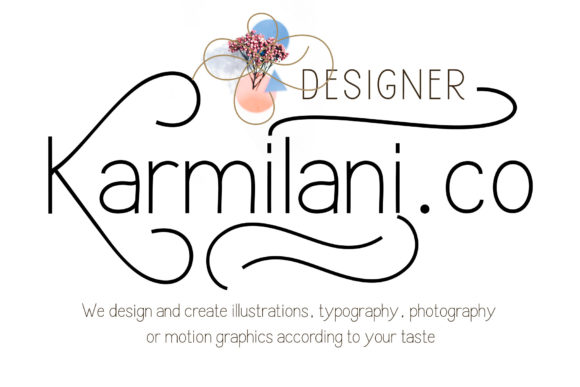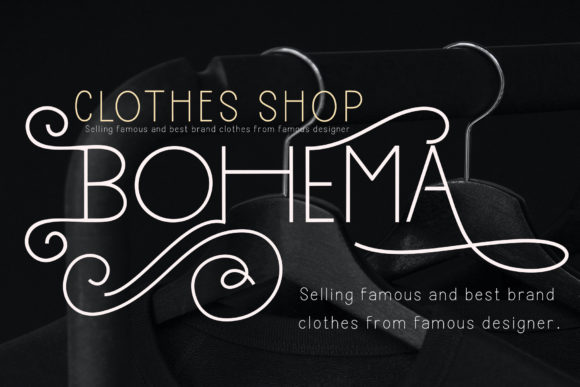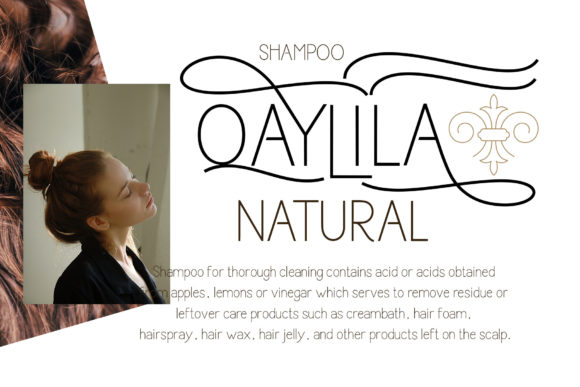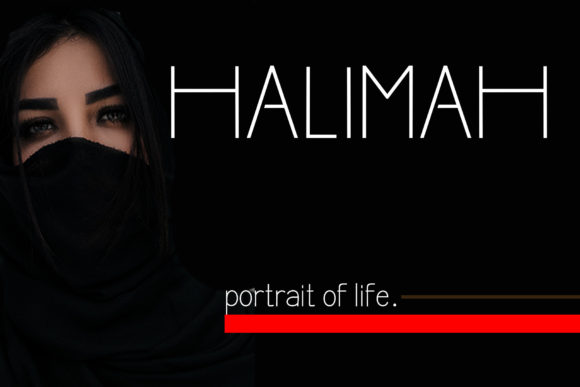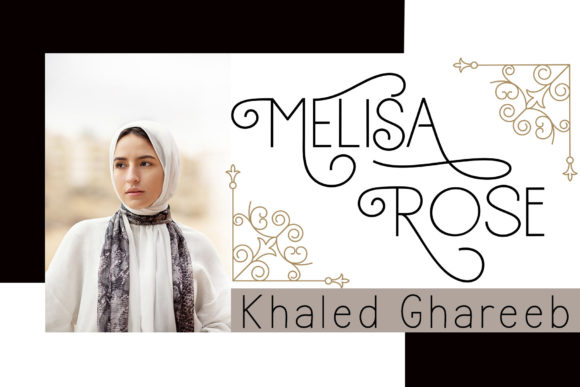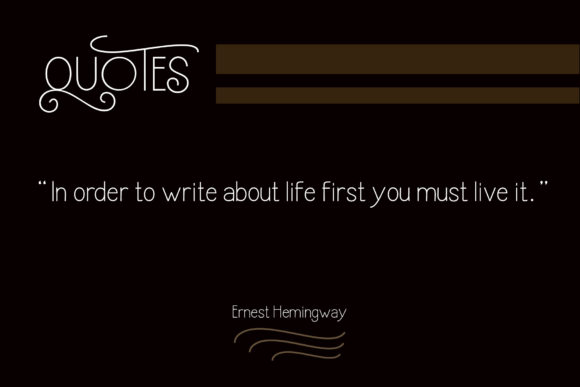
Discover the Elegance of Antona Font: A Versatile Sans Serif for Your Creative Projects
Are you on the hunt for a font that exudes elegance and sophistication? Look no further than Antona Font, a stunning sans serif typeface that is sure to elevate your designs to new heights. With its incredibly versatile style and PUA encoding, Antona Font is the perfect choice for designers and crafters looking to add a touch of refinement to their creative projects.
What Makes Antona Font So Special?
Antona Font is an elegant and thin lettered sans serif font that boasts a unique and captivating style. Its sleek lines and curves make it perfect for a wide range of applications, from luxury branding and advertising to packaging and digital media. But what really sets Antona Font apart is its PUA (Private Use Area) encoding, which allows you to access all of the glyphs and swashes with ease.
PUA encoding is a game-changer for designers, as it provides unparalleled flexibility and creative freedom. With Antona Font, you can effortlessly swap out letters and glyphs to create stunning, one-of-a-kind designs that showcase your unique style and vision.
The Benefits of Using Antona Font
So why choose Antona Font for your next design project? Here are just a few benefits of using this incredible typeface:
- Unparalleled versatility: Antona Font is incredibly versatile, making it perfect for a wide range of applications and design styles.
- Elegant and sophisticated: With its sleek lines and curves, Antona Font exudes elegance and sophistication, making it perfect for luxury branding and high-end designs.
- Easy to use: Thanks to PUA encoding, Antona Font is incredibly easy to use, even for designers who are new to working with glyphs and swashes.
- Highly customizable: With Antona Font, you can create truly unique designs by swapping out letters and glyphs to suit your style and vision.
How to Use Antona Font in Your Designs
Using Antona Font in your designs is incredibly easy, even if you’re new to working with fonts and glyphs. Here are a few tips to get you started:
- Access the glyphs and swashes: With PUA encoding, accessing the glyphs and swashes in Antona Font is easy. Simply use the font’s built-in character map or glyphs panel to browse and select the characters you need.
- Experiment with different combinations: Don’t be afraid to get creative and try out different combinations of letters and glyphs. Antona Font is highly customizable, so feel free to experiment and find the perfect look for your design.
Antona Font is a truly exceptional typeface that is sure to elevate your designs to new heights. With its elegant and sophisticated style, PUA encoding, and unparalleled versatility, Antona Font is the perfect choice for designers and crafters looking to add a touch of refinement to their creative projects. So why wait? Download Antona Font today and discover the power of elegant, thin lettered sans serif typography for yourself!
Whether you’re a seasoned designer or just starting out, Antona Font is an excellent addition to your font library. Its ease of use, highly customizable nature, and stunning good looks make it an ideal choice for a wide range of applications, from luxury branding and advertising to packaging and digital media.
So go ahead, fall in love with Antona Font’s incredibly versatile style, and use it to create spectacular designs that showcase your unique vision and creativity!